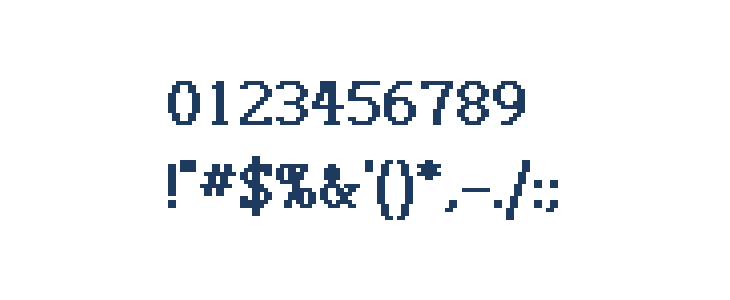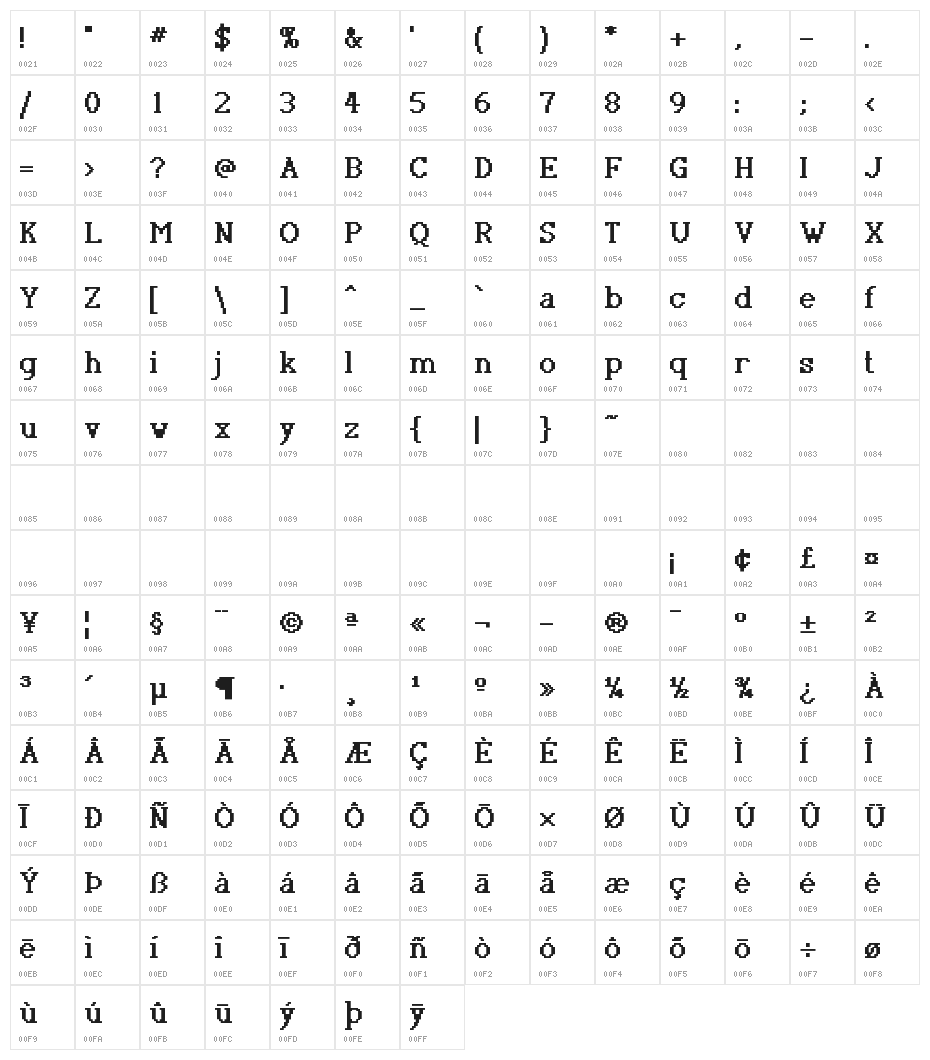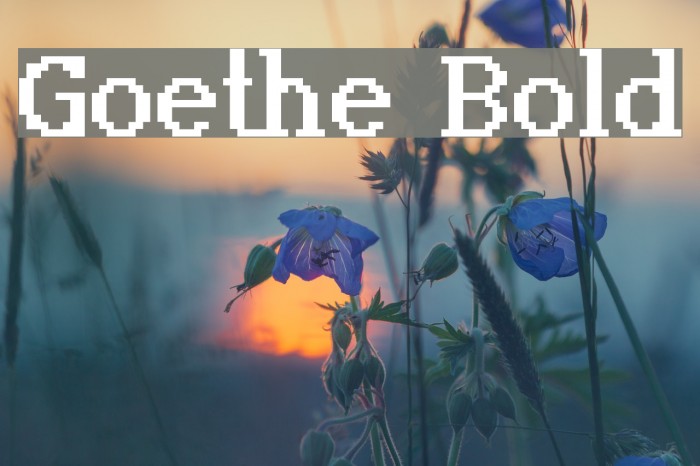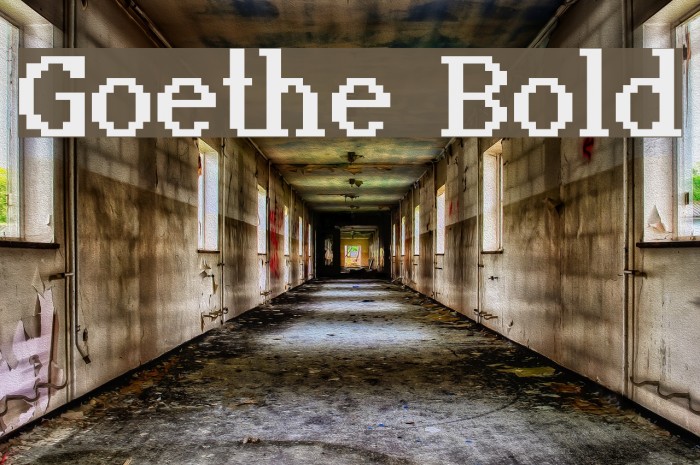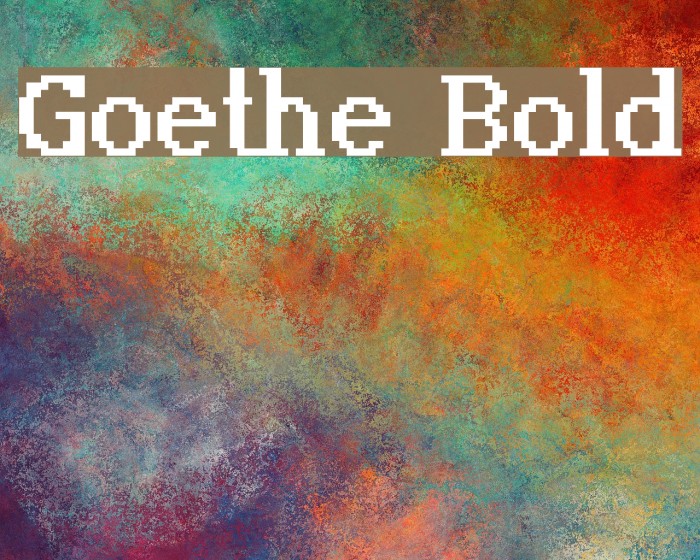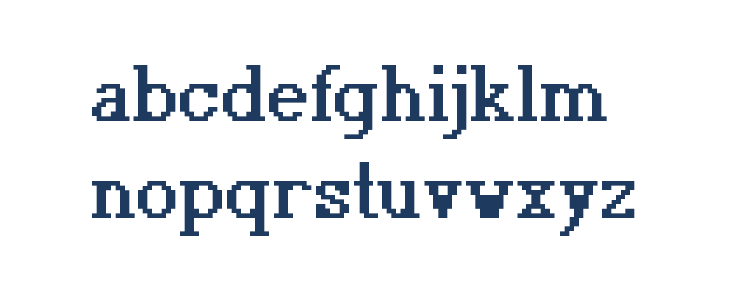
Goethe Bold Font
Goethe Bold Description
This font exhibits a bold and robust serif style, characterized by its strong vertical strokes and slightly curved serifs. The uppercase letters are evenly proportioned, with a classic and authoritative appearance. The lowercase letters maintain a consistent weight, providing a harmonious balance between the characters. The numerals are clear and distinct, ensuring readability. Special characters are designed with the same boldness, making them stand out effectively. This font's overall design is both traditional and impactful, suitable for conveying a sense of reliability and strength.